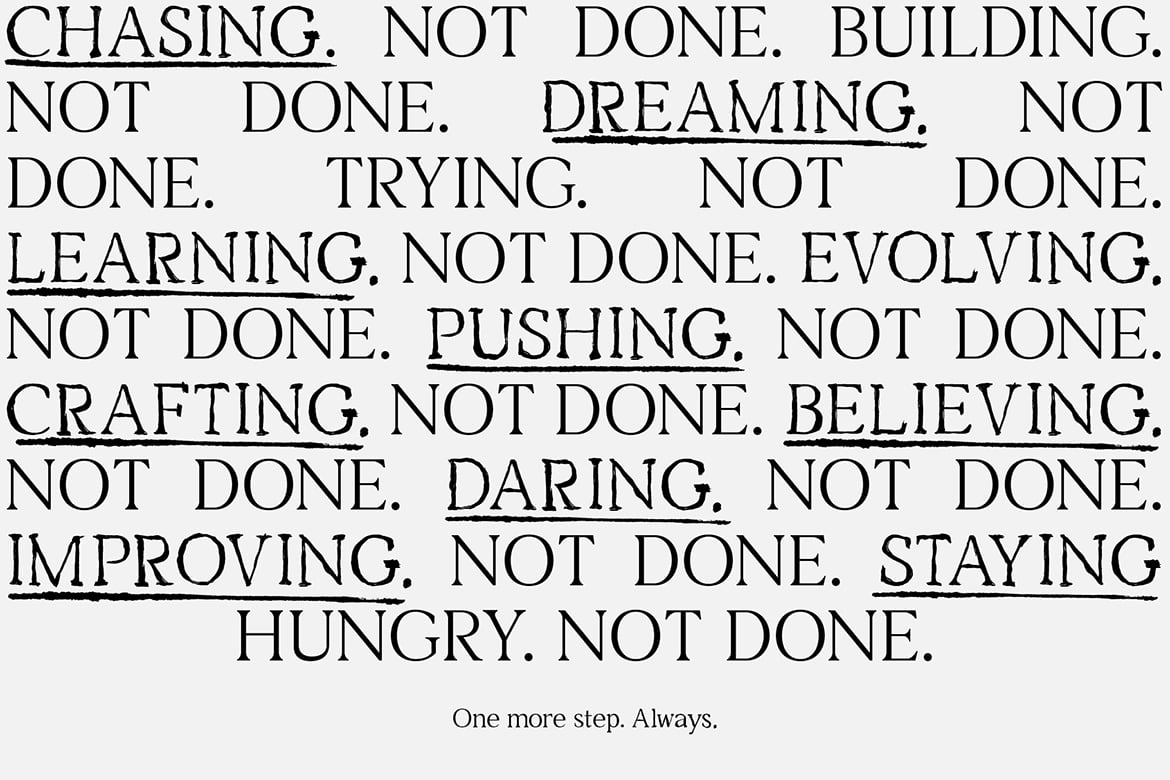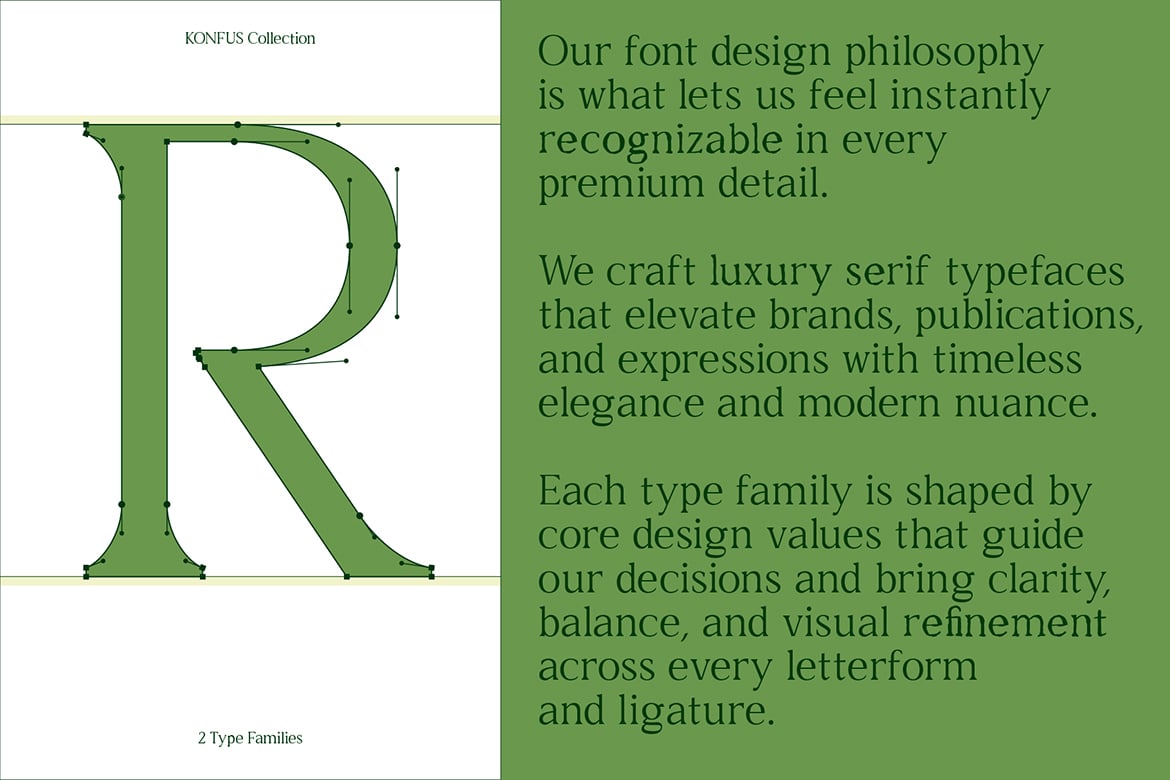
Konfus comes in two versions that share one skeleton. The Regular is a calm, slightly soft serif with wedge-shaped serifs and a gentle contrast. The Brush version has the same letters but with rough, ink-soaked edges, as if printed with an old press on absorbent paper. On the green cover, the two are stacked one above the other so you can compare them.
Because the shapes match exactly, you can switch styles mid-sentence, as the “Chasing. Not done.” poster does with underlined Brush words in a Regular text. Invasi Studio includes ligatures, stylistic alternates and multilingual support in OTF, TTF, WOFF and WOFF2.
Best uses for Konfus
- Editorial titles and magazine covers
- Lifestyle and wellness branding
- Book covers with an organic feel
- Packaging for coffee, tea and craft goods
- Posters mixing clean and textured type
Konfus brings its own variety, so keep the third font simple. Work Sans is clean for captions and small print. Source Serif 4 works if you need a text serif for long reading. For a sans with character, try Bricolage Grotesque.
Konfus – Organic Modern Serif Duo Font